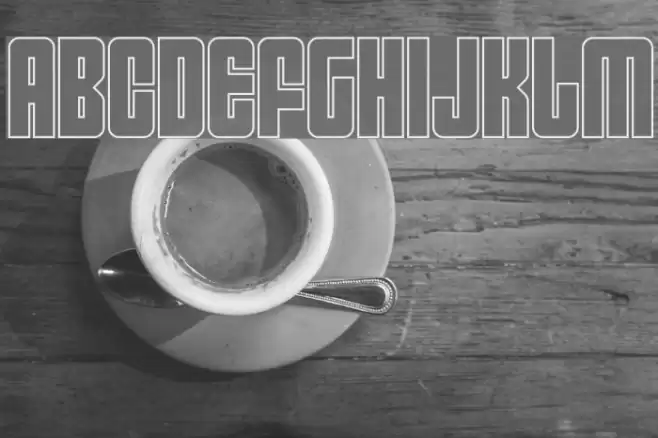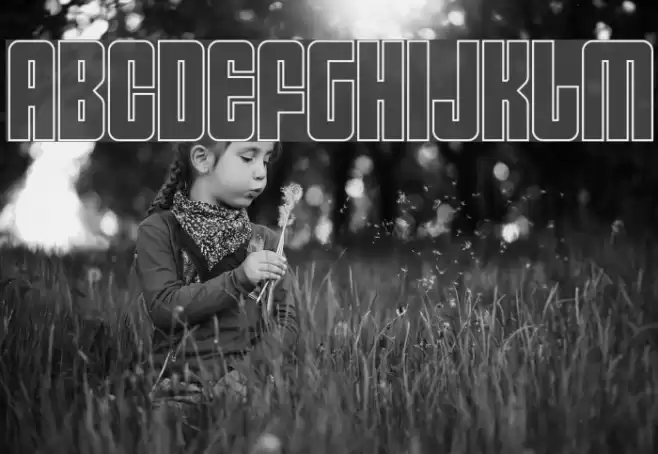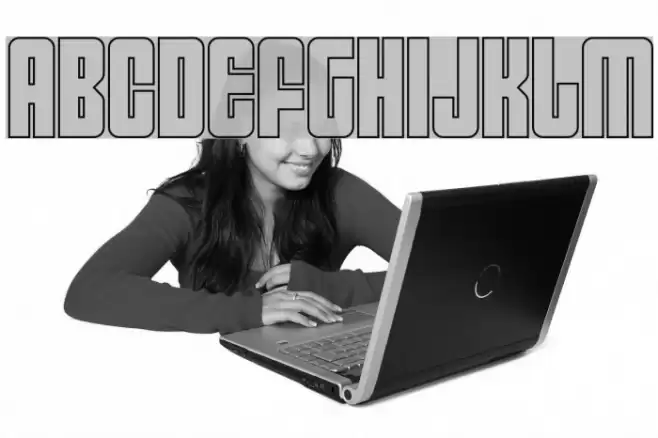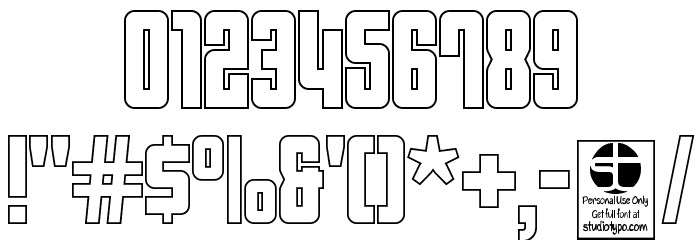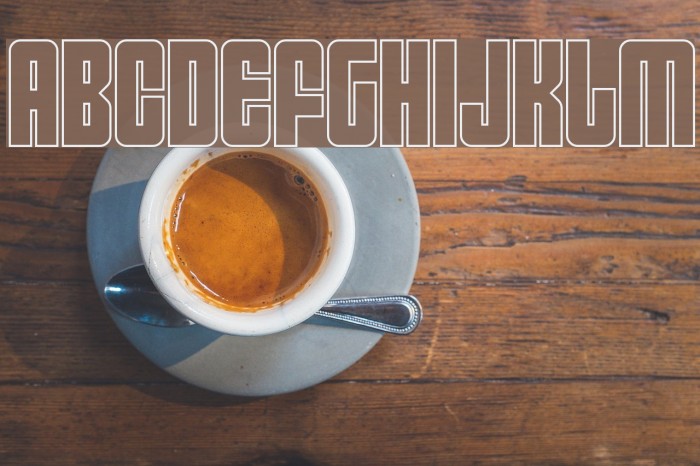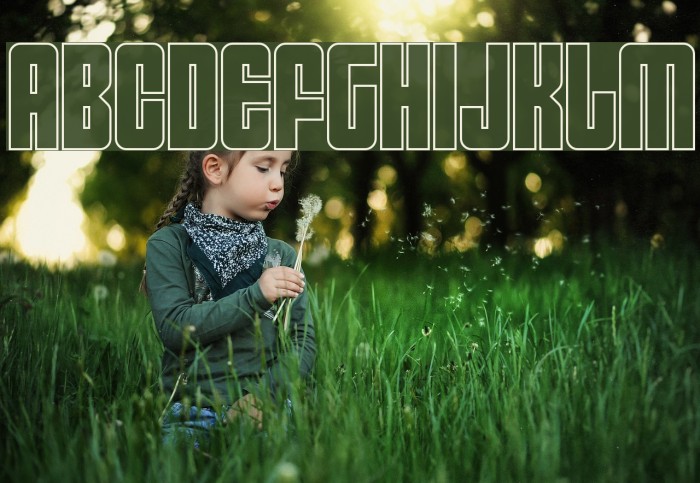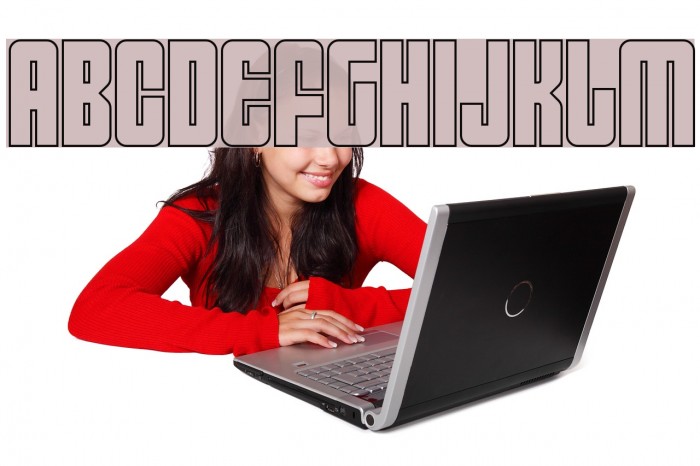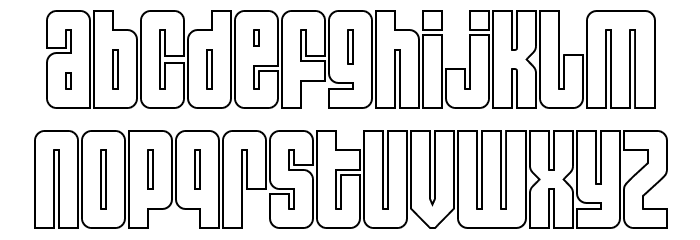
Asectica Outline Demo Font
This font features a bold, geometric outline style with a modern and futuristic appearance. The characters are constructed with thick, uniform lines that form a hollow interior, giving them a striking and impactful look. The uppercase and lowercase letters maintain a consistent height, contributing to a cohesive and structured design. The numbers and special characters follow the same stylistic approach, ensuring uniformity across all elements. This font's design is ideal for creating attention-grabbing headlines, posters, and branding materials where a contemporary and bold statement is desired.
A bold, geometric outline font with a modern, futuristic style from Uncategorized fonts.
- Proposed Projects: Ideal for headlines, posters, branding, and any project requiring a bold, modern aesthetic.